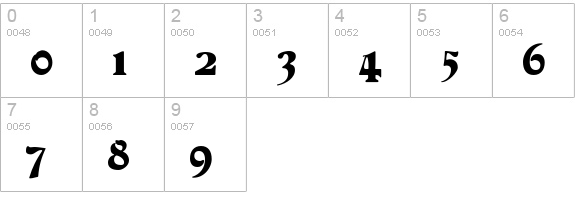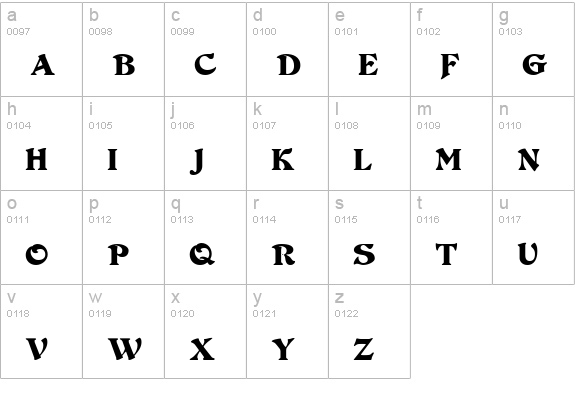
DuvallSmallCaps Font Details
DuvallSmallCaps font is a versatile and elegant typeface that exudes sophistication and charm. With its small caps style, this font is perfect for adding a touch of class to any design project. The clean lines and balanced proportions of DuvallSmallCaps make it a great choice for both headers and body text. Best of all, DuvallSmallCaps is available for free download at FontsMarket.com. This means you can easily add this stylish font to your collection without breaking the bank. Whether you're working on a print design, web project, or anything in between, DuvallSmallCaps is sure to elevate your work with its timeless appeal. Don't miss out on the opportunity to enhance your designs with DuvallSmallCaps – download it for free today at FontsMarket.com and take your typography game to the next level!